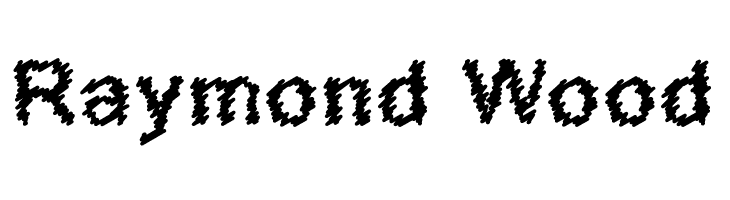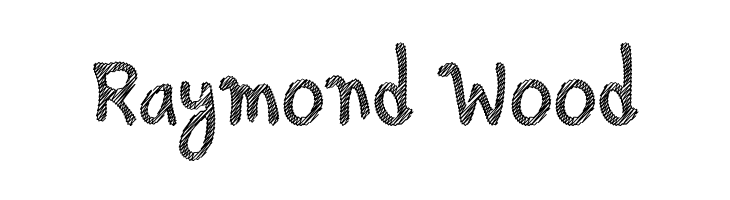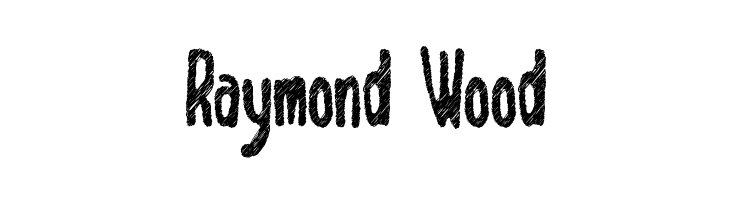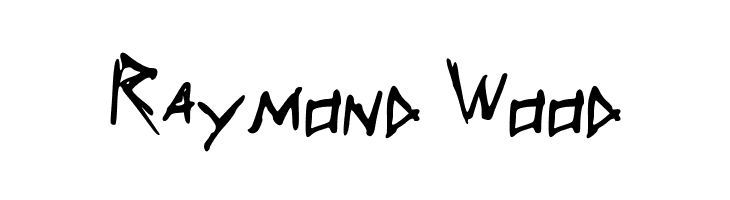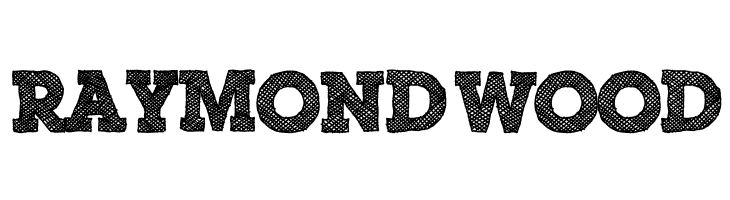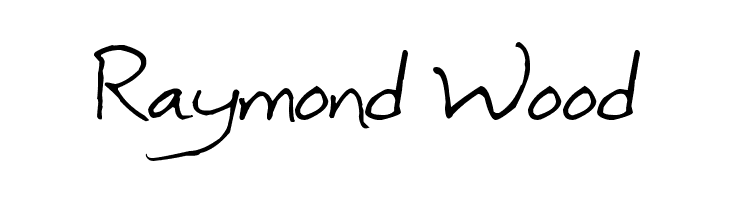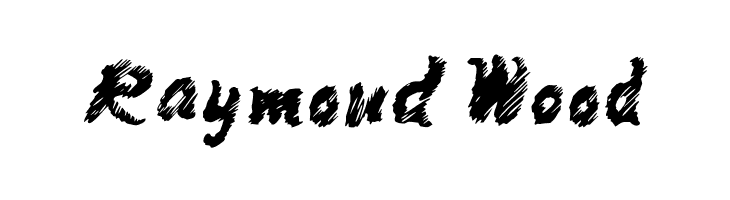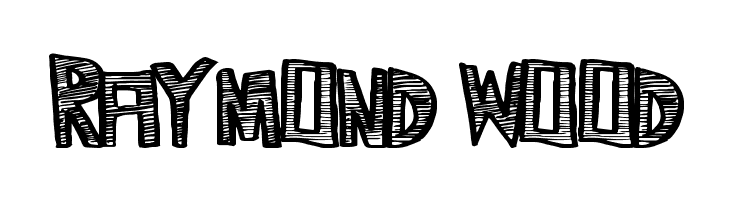
Scribble Font
A bold, scribble-like font with jagged, irregular strokes.
Marker Scribbles Font
A bold, marker-like handwritten display font with energetic strokes.
Gimp Scribble Font
A casual, handwritten font with dynamic strokes and a playful appearance.
Scribble Box DEMO Font
A bold, decorative font with a playful, scribble-textured design.
Sander's Scribble Font
A bold, playful handwritten font with a casual, dynamic style.
Scribble Scrawl Font
A bold, hand-drawn brush stroke font with dynamic, uneven characters.
Scribble Regular Font
A playful, handwritten font with a casual and informal style.
Pilkius Romeus Font
A playful, bold font with a hand-drawn, whimsical style.
Scribble Fun Font
A playful, scribbled font with a textured, hand-drawn appearance.
Inkpen Scribble Font
A casual, handwritten font with an ink pen scribble style.
SF Scribbled Sans Bold Font
A bold, handwritten font with dynamic strokes and a playful style.
Fh_Scribble Font
A playful, hand-drawn font with a doodle-like, 3D effect.
Scribble Lines Font
A playful, hand-drawn font with a scribbled, sketch-like appearance.
KR Scribble Heart Font
A playful, heart-themed decorative font with a hand-drawn style.
Scribble Serif Regular Font
A bold, scribbled serif font with a hand-drawn, textured appearance.
SF Scribbled Sans Bold Italic Font
A bold, italic, handwritten font with a playful, scribbled style.
SF Scribbled Sans Font
A casual, handwritten font with a playful, scribbled appearance.
Scribbled Monkey Font